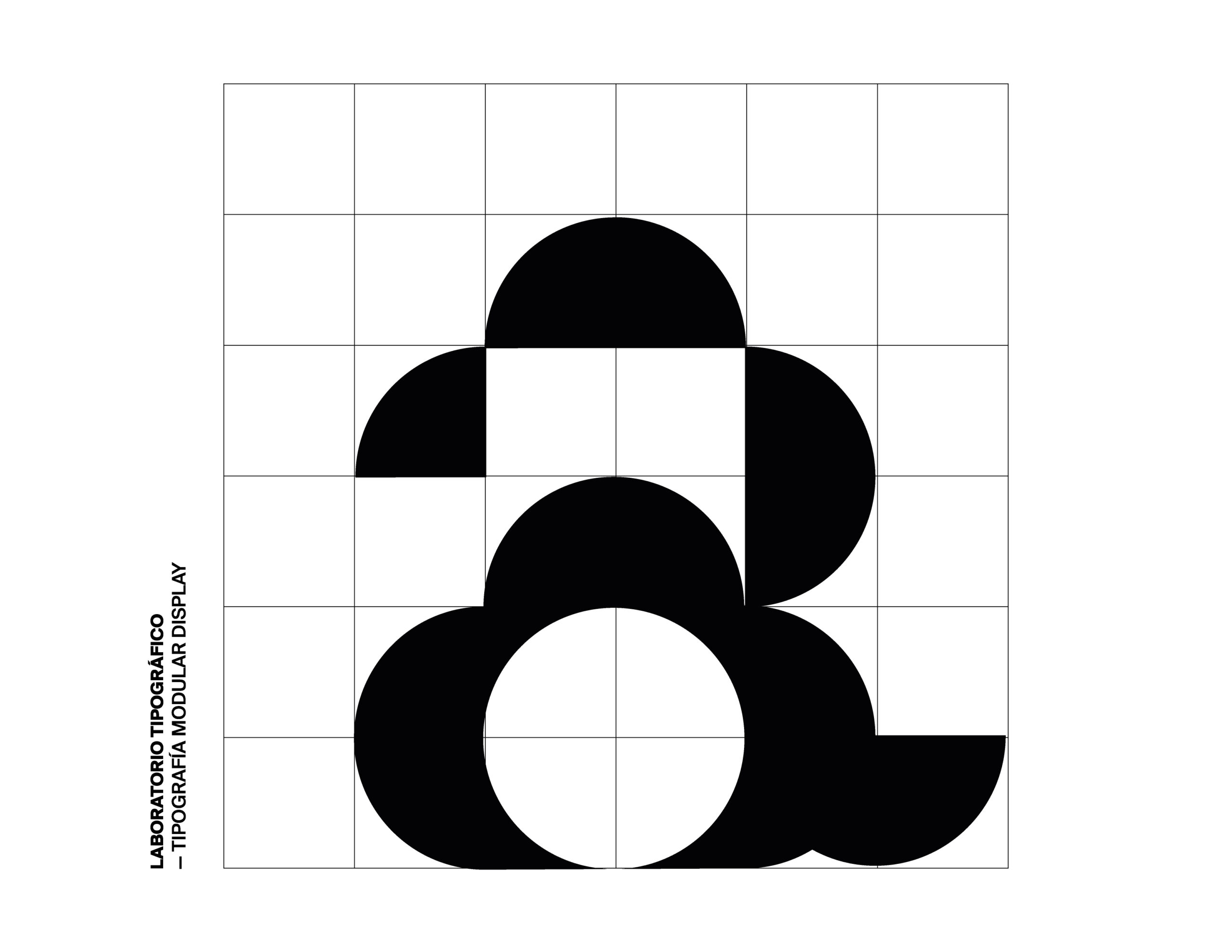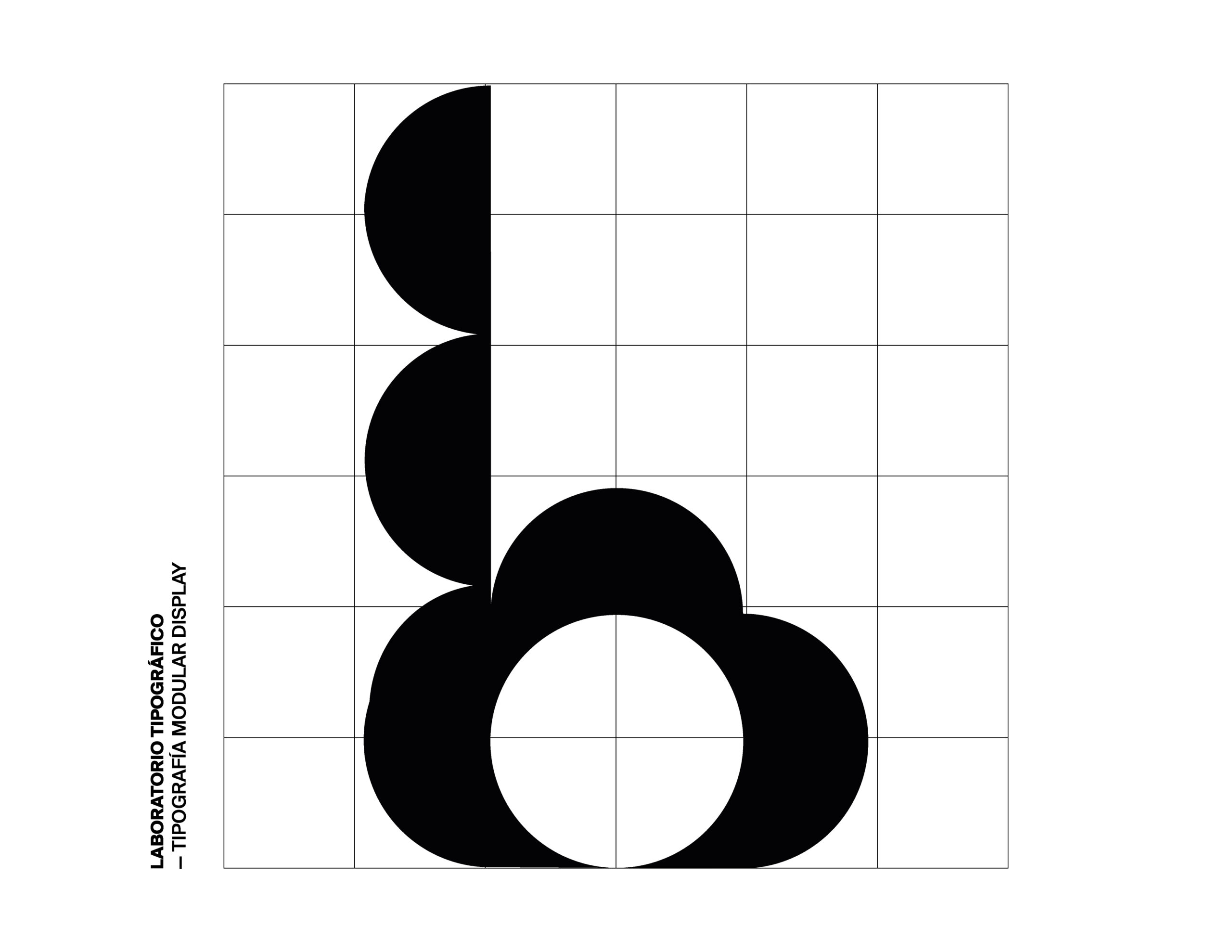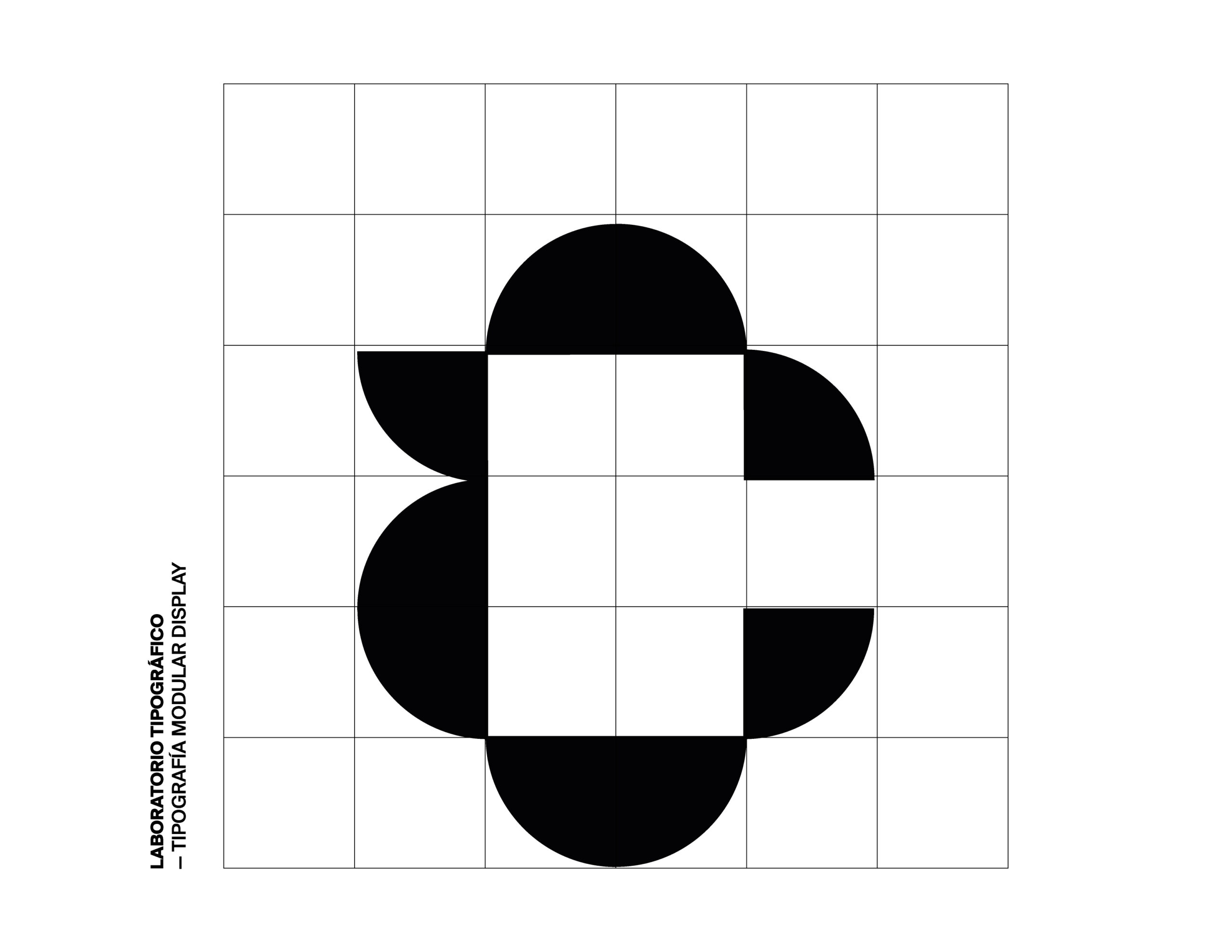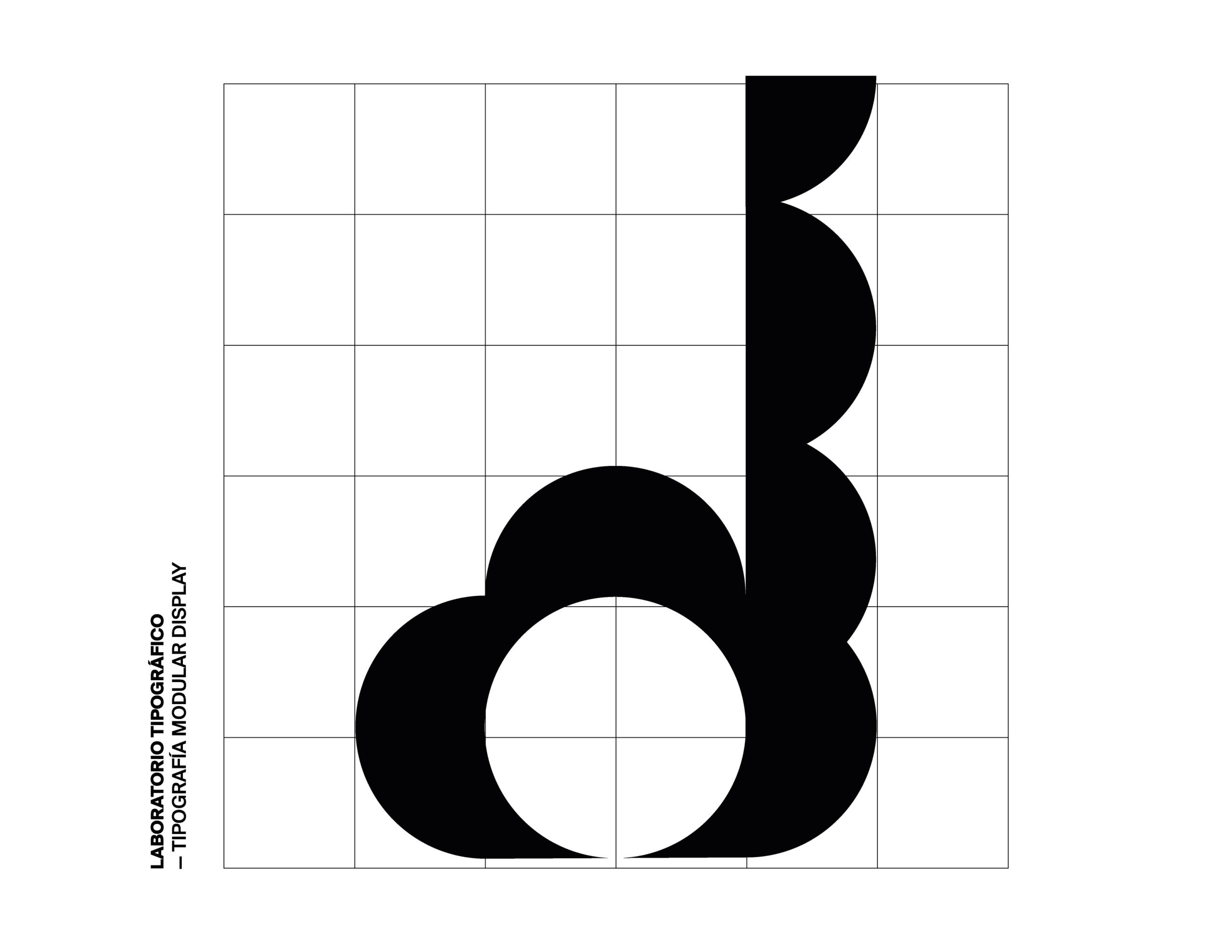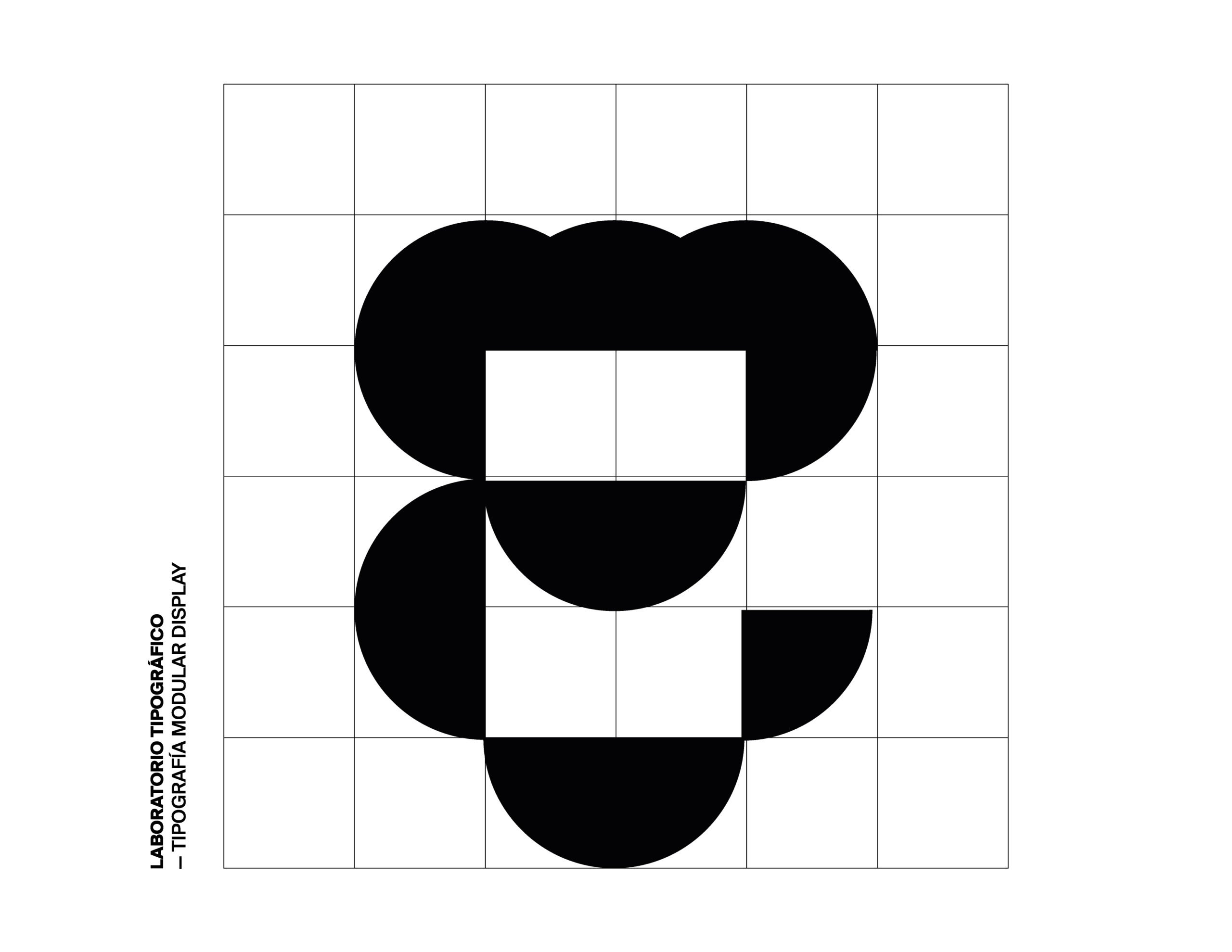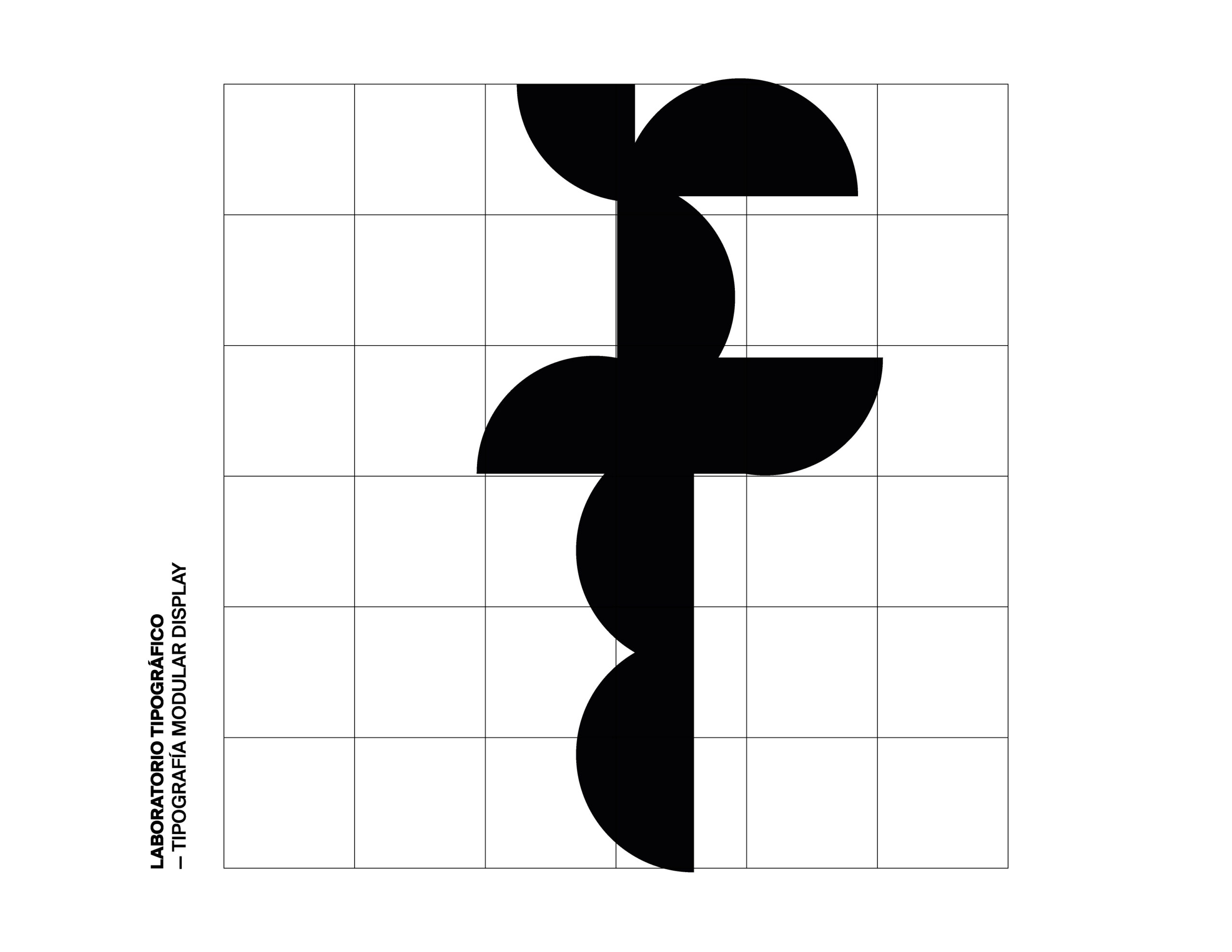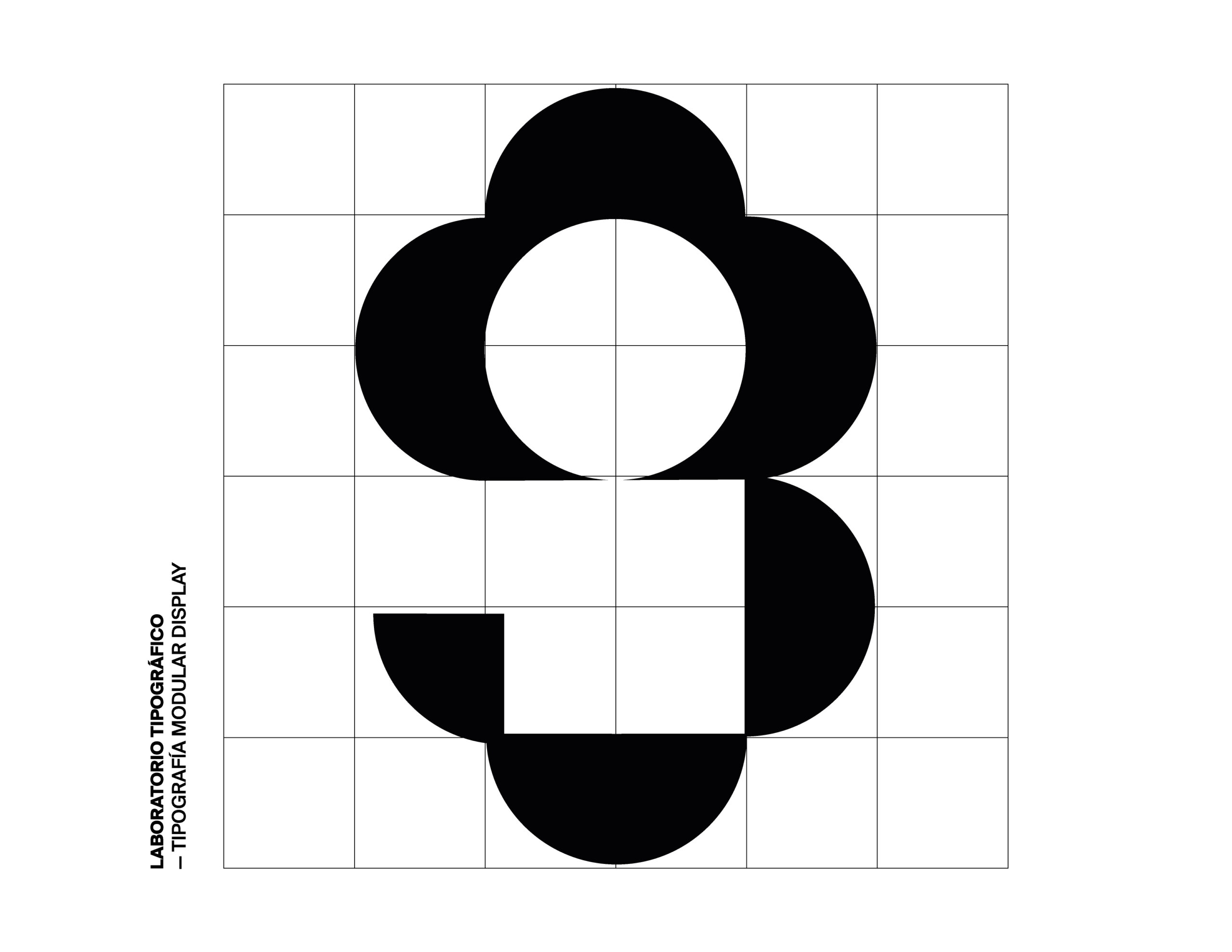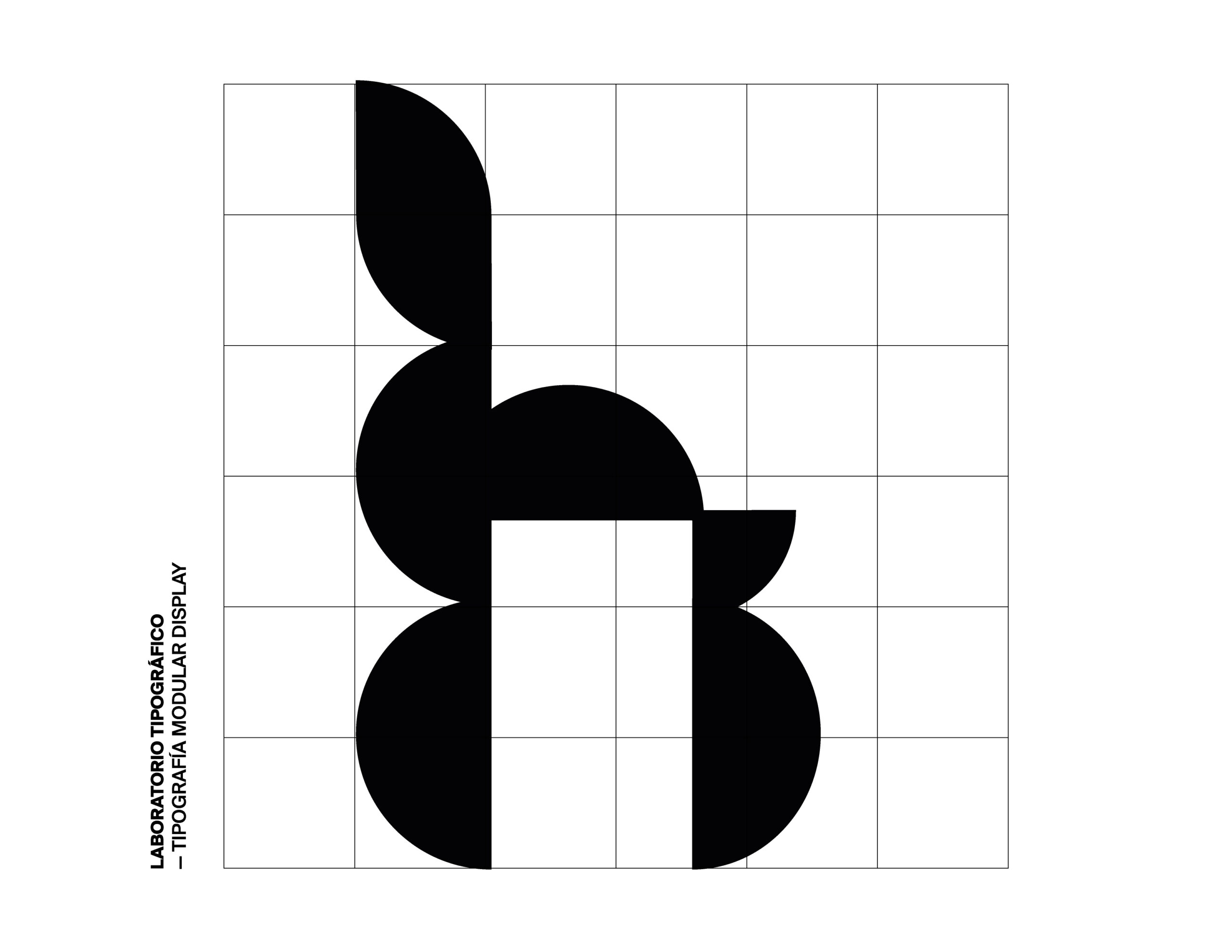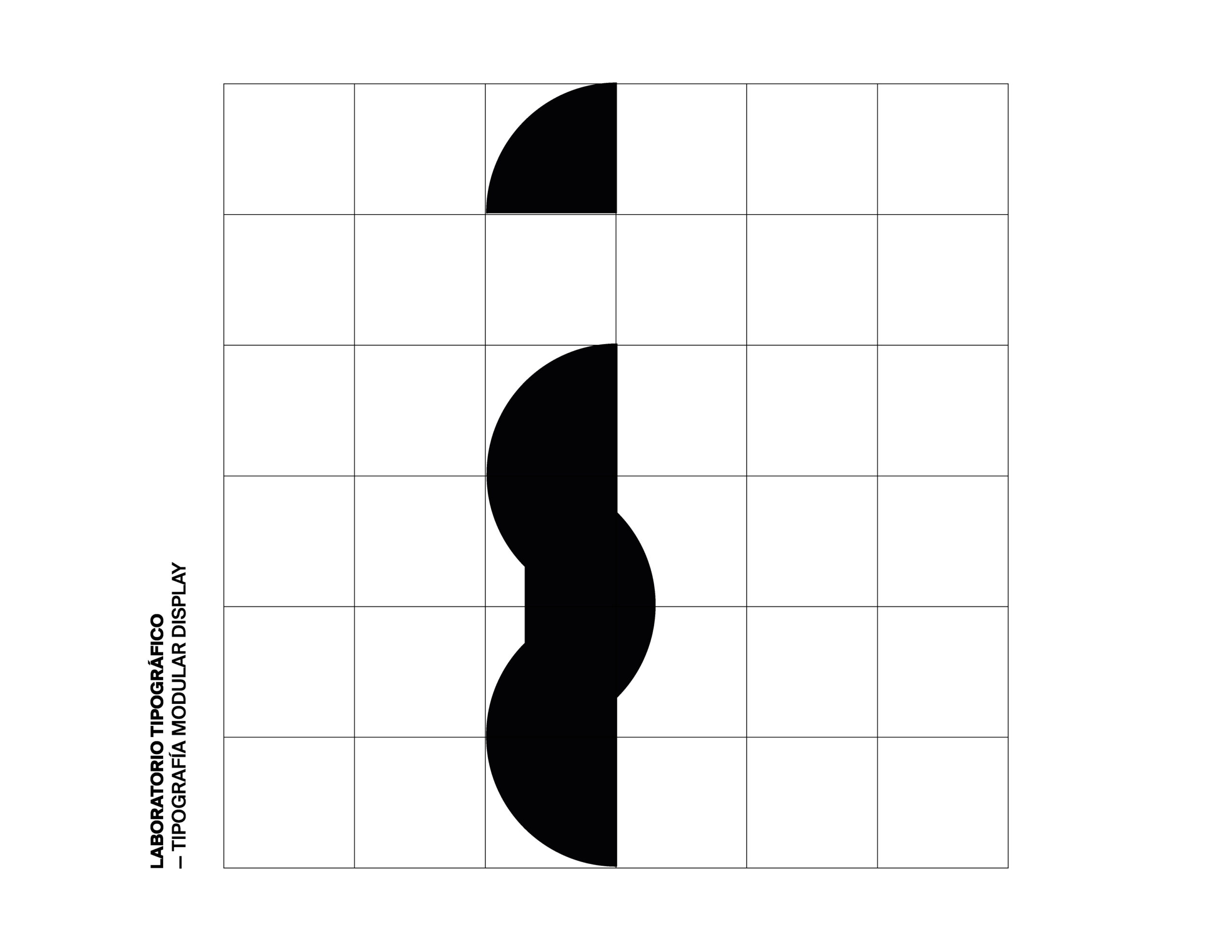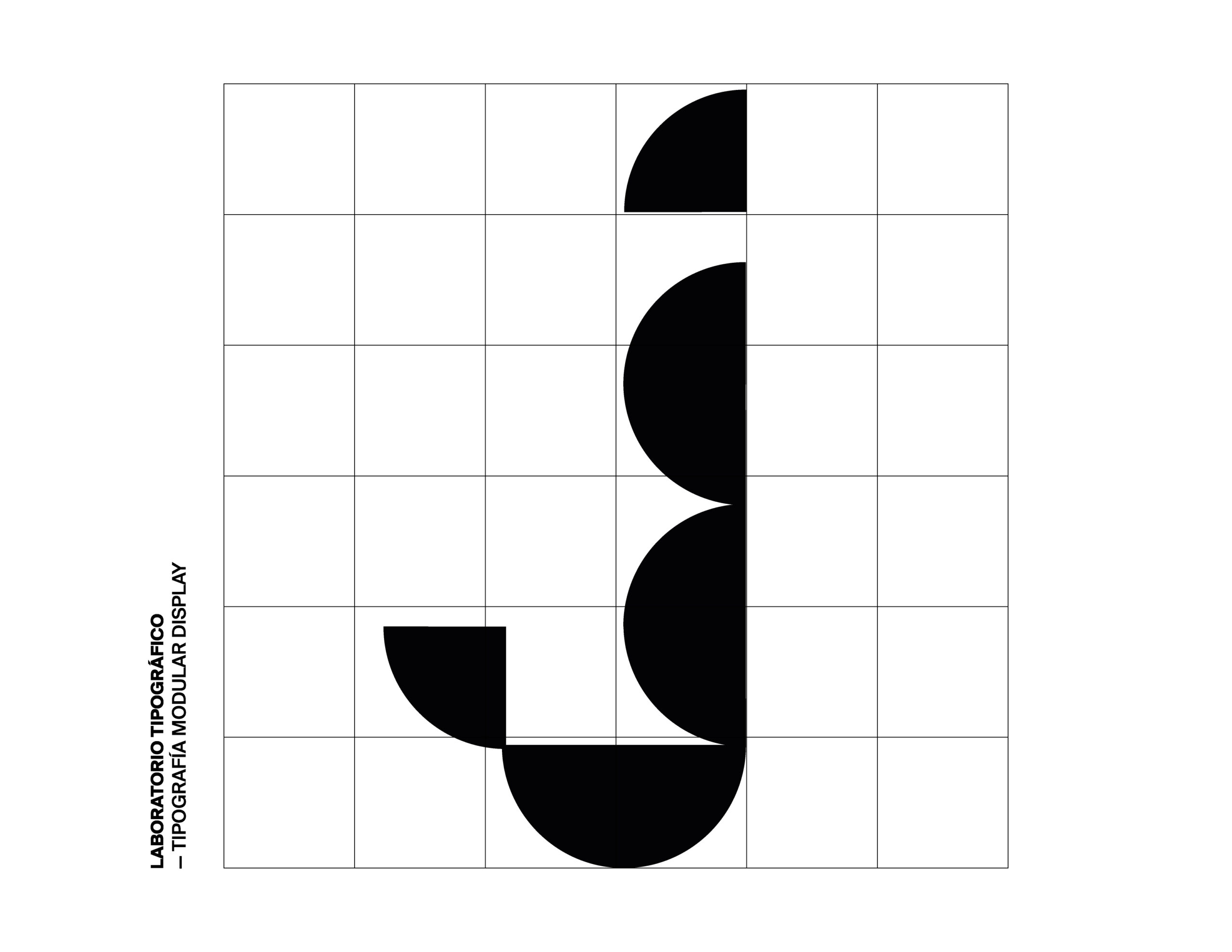
A typeface that
reads itself backwards.
FORMFONT is a display typeface built entirely from scratch — starting from lowercase, breaking the convention that uppercase is always simpler. Every letter is constructed on a 6×6 modular grid using only circles and semicircles as building blocks. The concept comes from the Spanish palindrome ¿Somos o no somos? — a phrase that reads the same forwards and backwards. This symmetry became the DNA of the typeface: forms that mirror themselves, curves that return to their origin, a visual rhythm that never breaks.
Uppercase has always been the starting point in type design — it is simpler, more geometric. Starting from lowercase was a deliberate decision to complicate the process, to force new solutions. The circle and semicircle became the only tools. Everything else followed from that single constraint.
Every type design textbook says start with uppercase — H, O, I. They are simpler, more geometric, easier to systematize. I did the opposite. Starting from lowercase forced me to solve harder problems first: the curves of a, the descenders of g, the asymmetry of b and d. It made the process harder, and the result stronger.
¿Somos o no somos? reads the same forwards and backwards. This symmetry became the conceptual backbone of the typeface — forms that mirror themselves, a rhythm that returns to its origin. The circle embodies this perfectly: it has no beginning and no end. Every letterform in FORMFONT carries this idea of return.
Working within a strict grid is a form of creative discipline. The 6×6 system meant every decision had to be justified: why does this stroke end here? Why does this curve start at this point? The grid became a collaborator, not just a tool. It made every letter accountable to the same underlying logic.
FORMFONT was never meant to be a text face. It was designed to be seen large — on posters, covers, headlines. At small sizes the circular geometry becomes noise. At large sizes it becomes architecture. The typeface only reveals its full logic when it has room to breathe.